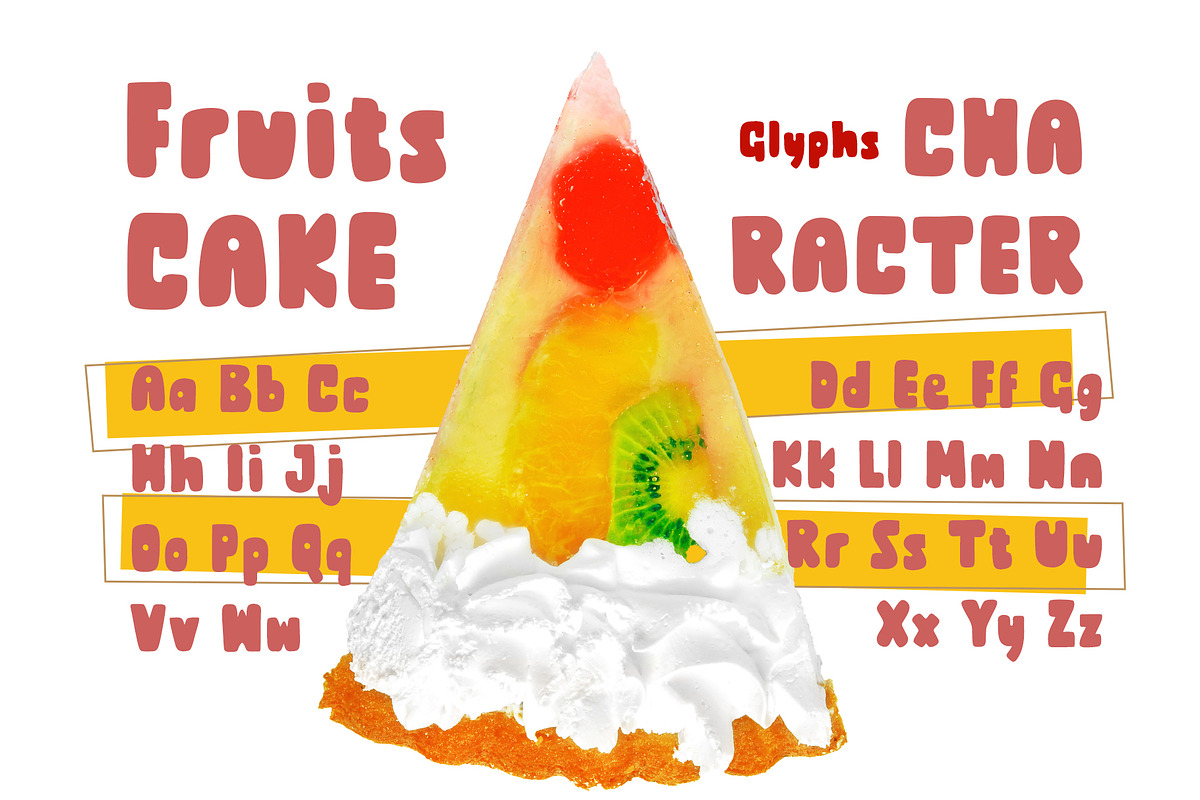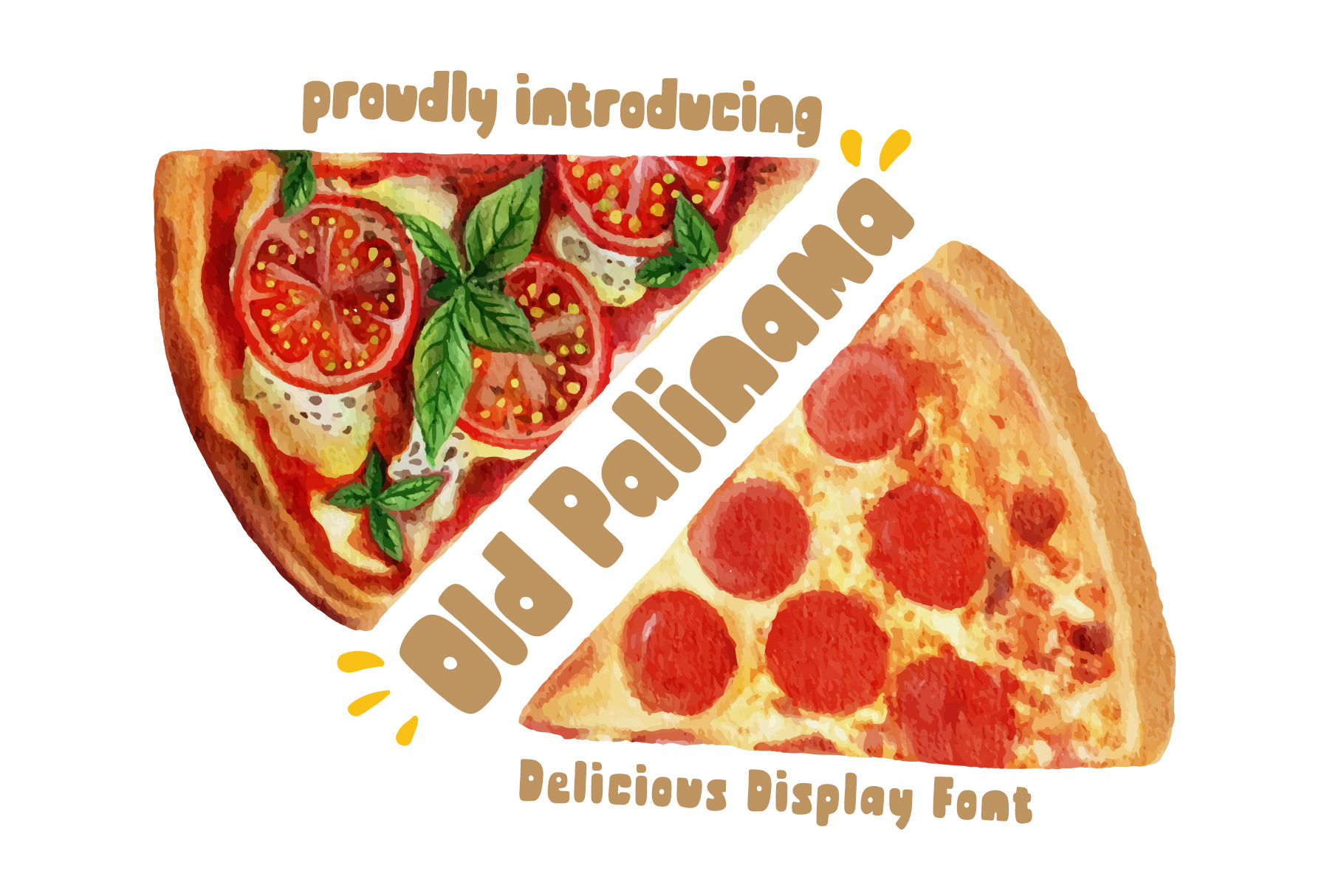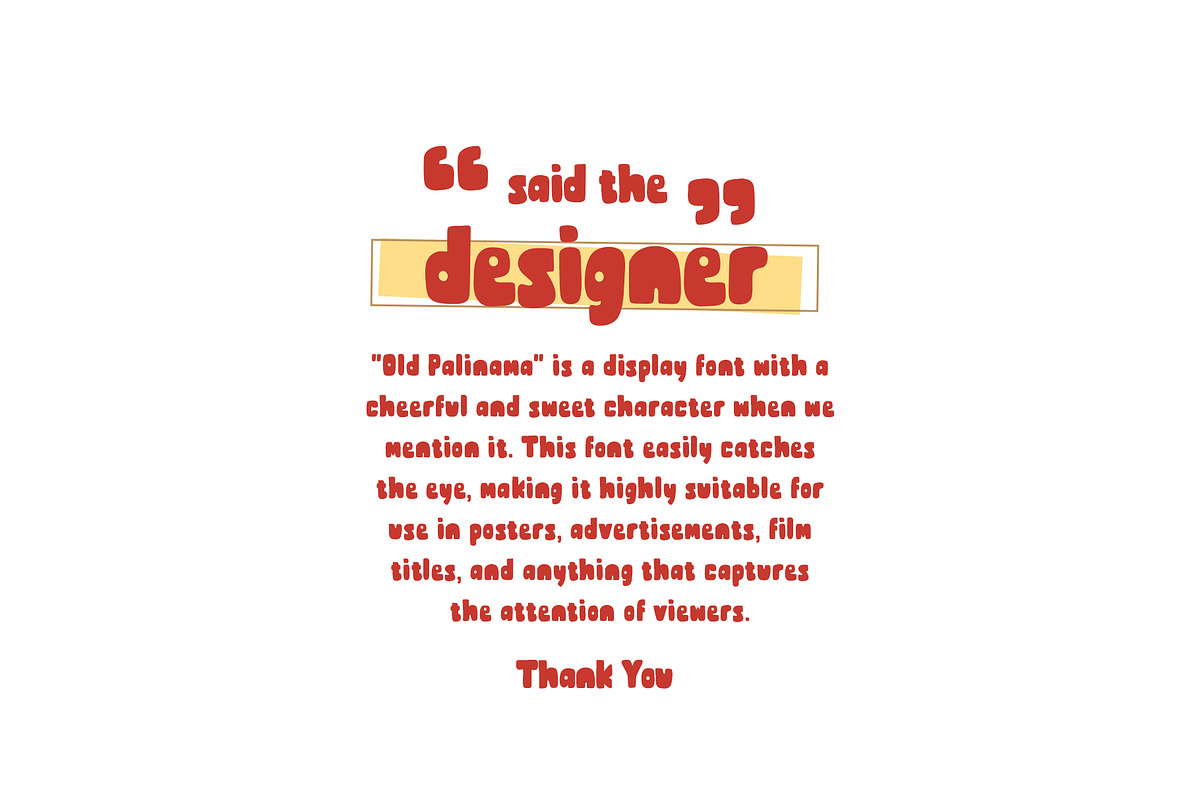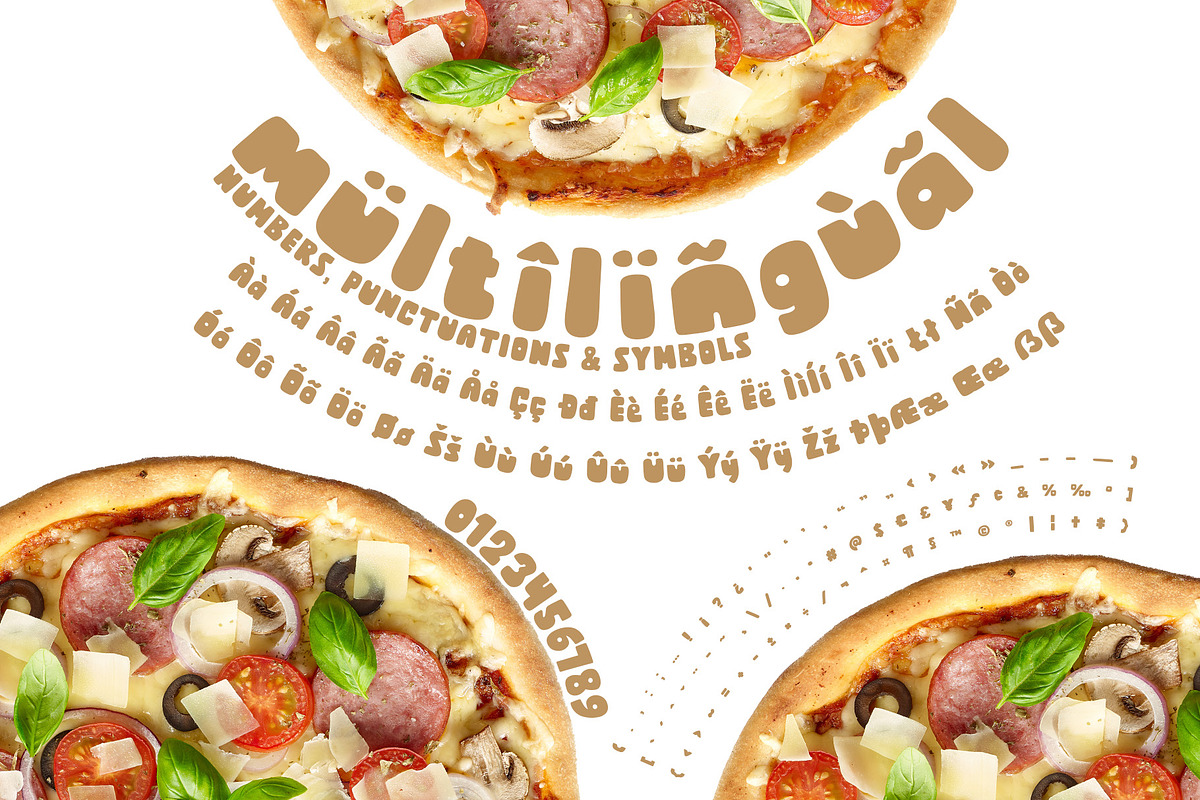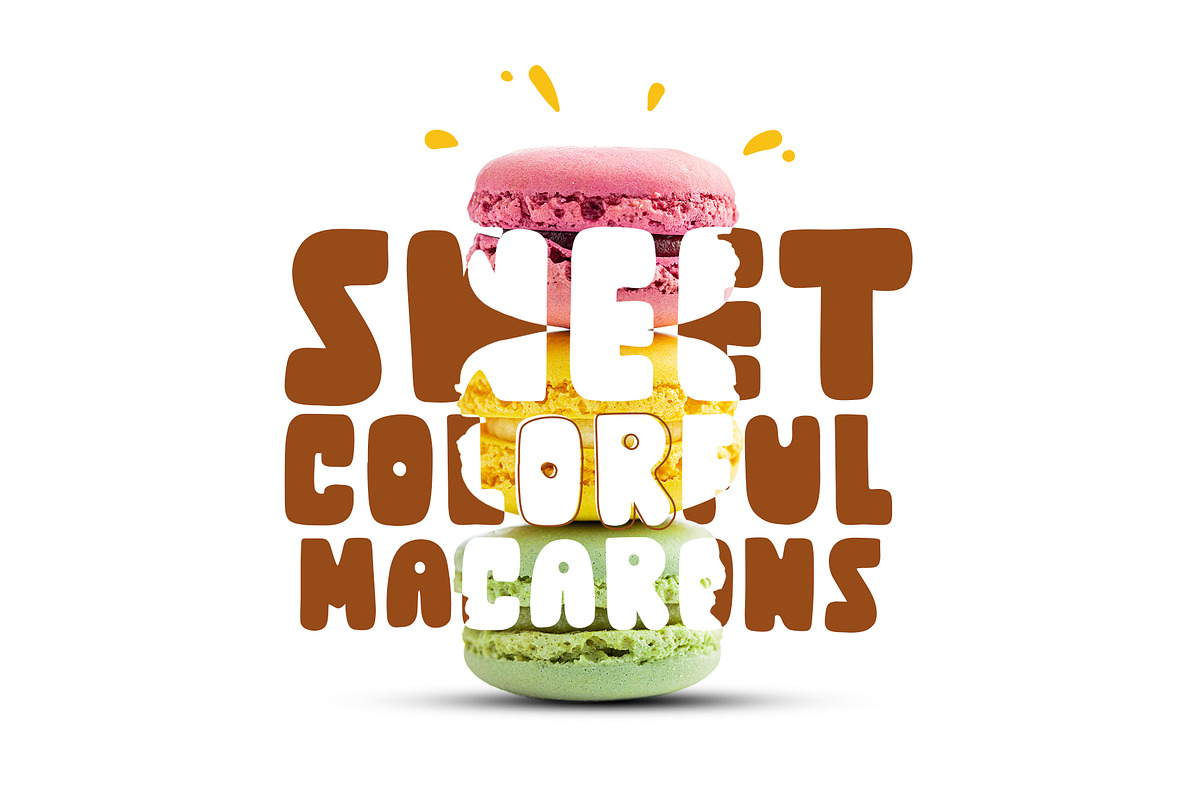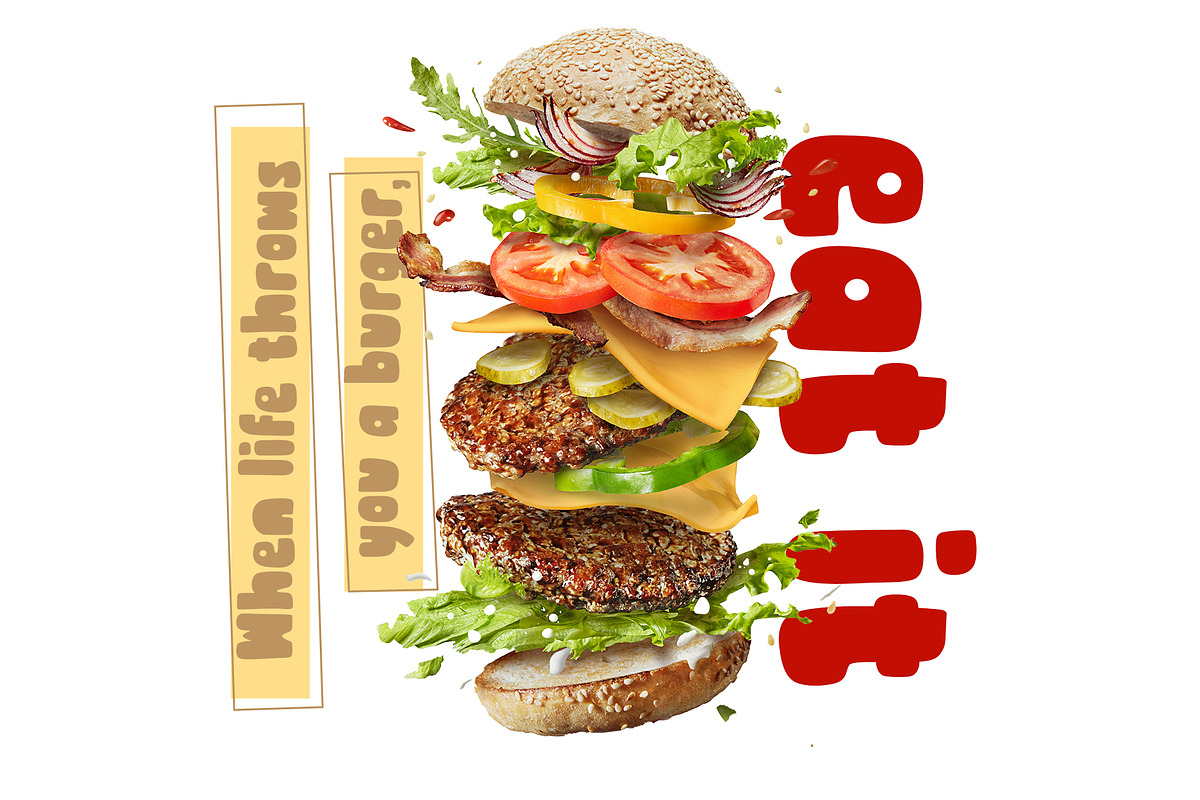
Old Palinama Delicious Display Font
Old Palinama is a font specifically designed to bring harmony between contemporary food design and a delightful classic impression. With an elegant and timeless touch, this font adds aesthetic value to various food-related design projects, such as restaurant menus, culinary brochures, food blogs, and more.
The history of the creation of this font began with our desire to create a font that combines contemporary food design with a captivating classic touch. We were inspired by the sophistication and diversity of the culinary world today, as well as the charm and deliciousness of traditional cooking styles. We aimed to create a font that could evoke an elegant impression while remaining relevant to the demands of modern design.
Old Palinama reflects the harmony between traditional values and the progress of time. Each letter and character of this font is meticulously designed to produce visually appealing and easily readable visuals. The font brings a warm and familiar touch, reminiscent of the flavors and memories of past food, yet it is still suitable for use in innovative and contemporary food design.
By using the Old Palinama font in your contemporary food design, you will add a classic and delightful impression to your culinary presentations. This font will provide an elegant touch that captivates the heart and attracts the reader's attention. In combination with modern design elements, this font will create a pleasurable visual experience and add aesthetic value to your food design.